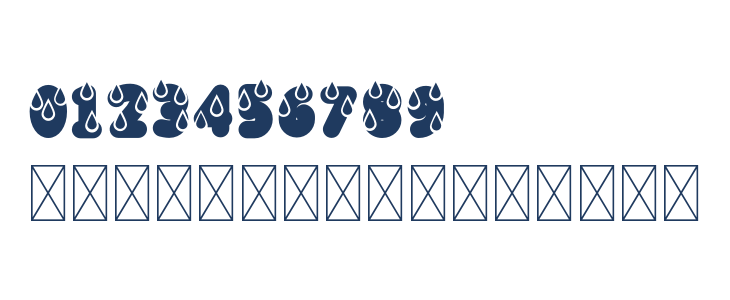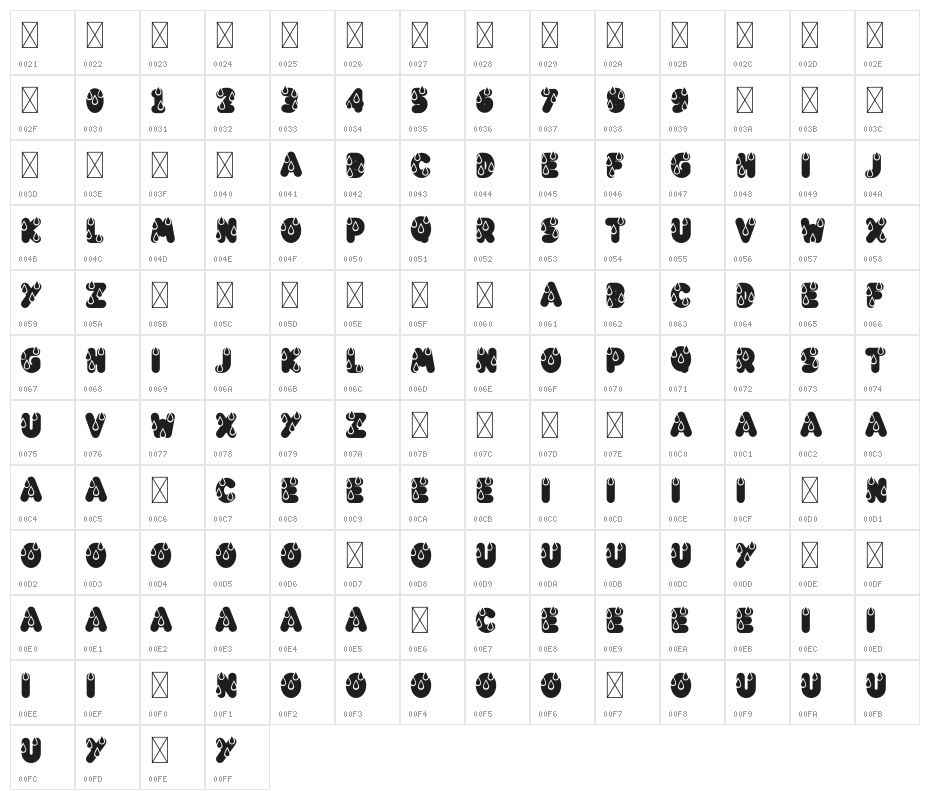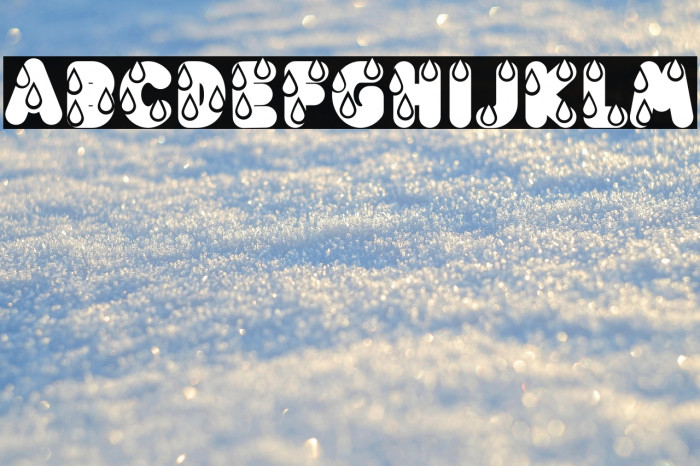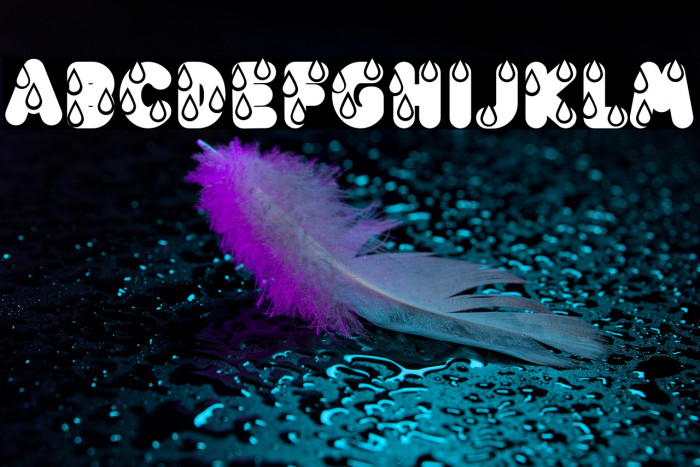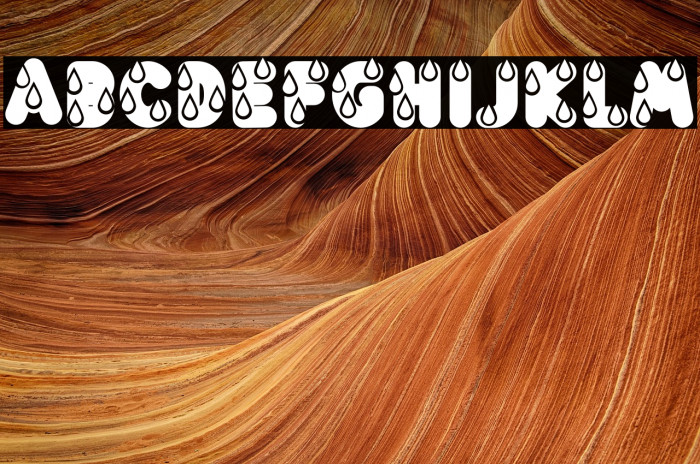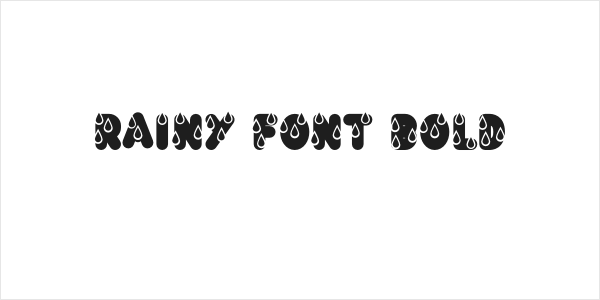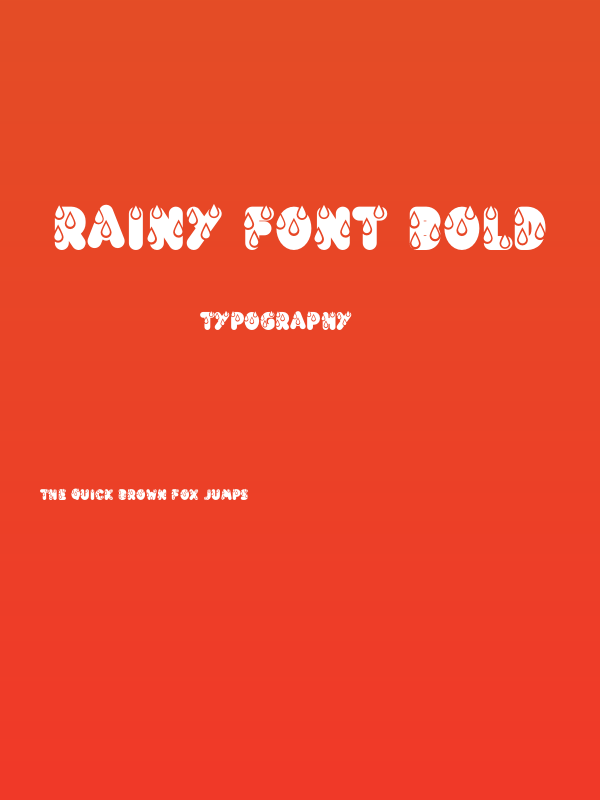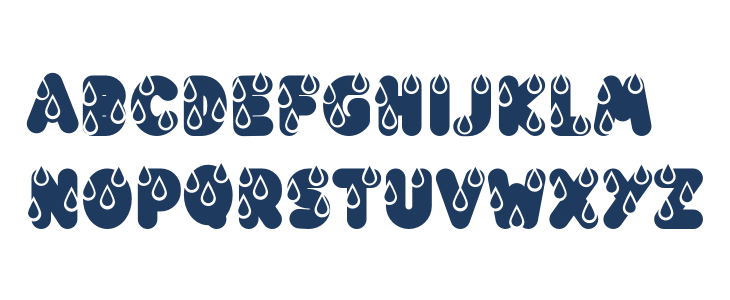
Rainy Font Bold Font
Rainy Font Bold Description
This playful and bold font features a unique design with raindrop motifs integrated into each character, creating a whimsical and eye-catching appearance. The letters are rounded and thick, giving a sense of fullness and presence. The raindrop elements add a decorative touch that makes the font stand out, perfect for projects that require a fun and engaging visual style. The characters are evenly spaced, ensuring readability while maintaining their distinctive look. This font is ideal for creative projects that aim to capture attention and convey a sense of playfulness.
| Proposed Projects | Ideal for children's book covers, playful branding, event posters, and creative social media graphics. |